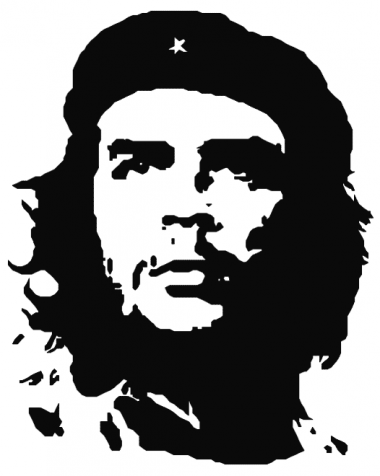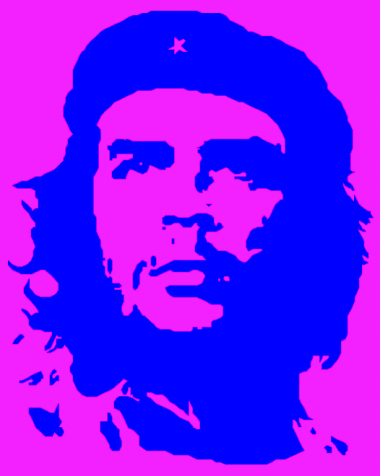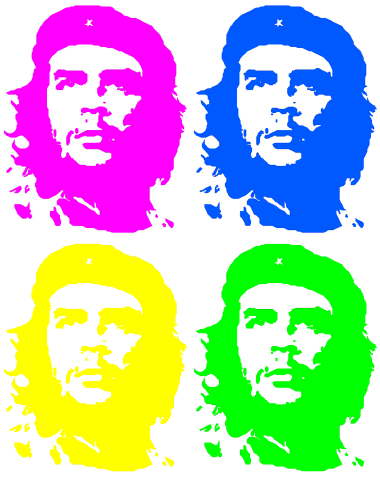
• This is a supplement for the font Hasta Siempre: my Fontstruct rendering of the iconic photograph of Che Guevara by Alberto Korda.
To assemble the picture type the following sequence:
ABCDE
FGHIJ
KLMNO
PQRST
UVWXY
Z0123.
Adjust the line spacing so as to get a continuous pattern without any horizontal gaps.
NIce addition, and clever use of FS!
Disclaimer: Ernesto Che Guevara remains to be a controversial figure, and only history will tell a final, unbiased judgment upon his merits. This work of mine is by no means to endorse his political views or deeds attributed to him. Still, he is an icon, a symbol within popular culture, a hero for some, and a lot more for others. Let me put two quotes to illustrate my point:
Che was the most complete human being of our age.
(by Jean-Paul Sartre)
Che's life is an inspiration for every human being who loves freedom. We will always honor his memory.
(by Nelson Mandela)
As I just told you, another stunning exemple of your incredible artistry in making beautiful "replicas put in another context". You used here Fontstruct as when the photorealists painters replicate photographs painting a giant grid of small details and when you add the cases of the grid the puzzle gives you a painting that is so close to a photograph that you can't tell it is a painting. Here you really can't tell it is Fontstruct.
Sorry for my english, it was not easy for me to explain here, hope you have understood.
ha! jus great
I'm not usually a fan of hi-res tracings, but this is a fantastic little work of art. Looks great when jumbled by some sample text. Very impressive that you didn't just use pixel bricks.
Impressive, genial work! Very good use for FS bricks! (This is just a new road that I will like to walk... once I've learned a little more from you to make fonts something better than now).
An incredible achievement ... technically and artistically. I remain amazed at the scope of your talent.
By the way, I'm in full agreement with Nelson Mandela on this one.
Thank you very much for your comments. I think, it is safe to say now that Hasta Siempre was well received, far beyond my expectations. I was a bit worried about the possibility, that someone might mistakenly believed I tried to sell marxist propaganda here. It couldn't have been further from the truth, and I think, I've made that clear in my disclaimer note. I have no intention to promote political ideas; I leave that to the politicians, who are always very good at furthering their own interests. However, since Voltaire's Candid we all know this world is not the best of all possible worlds. In fact, it is not even close to that, and heading to the opposite direction. Thus, there are several issues we strongly disagree with the official versions politicians want us to believe. I see a niche role for creative art, and typeface design in particular, to convey important messages to people, they would never hear on Fox News.
@neurone error: Well, that sounds very tempting to believe this Che portrait is photorealistic, but it's not. And I'm very happy with the imperfections, the rough polygonal look, and the small deviations from the original I've consciously made. The reason you think it's close to the photo, that it is easily one of the most ubiquitous, famous portrait, you probably knew the original, and you mind simply completes and corrects the small flaws.
@meek: Thank you for your comment. I've tried the sample text too. I put tiny dots to some otherwise empty glyphs to enable the sample text feature. Since it was produced using simple bricks and no fancy advanced techniques, it is a proof of concept to use Fontstruct to design/prototype large scale artworks for murals or floors with tiles.
@elmoyenique: Thank you very much for your praising words. If you really interested in this kind of technique, I tell you here briefly how I've made it. It's called tracing, and I've used the same grid paper method as Bat Country by loboarches. The other example is a bit different using transparent windows for tracing: FIGURE COLLECTION Part 1 by kix. Both were very inspirational to my project. Follow the links to find the info you need. Apart from the technical settings (size of the grid, magnification, contrast of the original pic, etc.), the result depends on your decisions brick-by-brick to best approximate the original. As for this particular case, I started with the right eye. I thought the glint was the most important detail to be faithfully reproduced. Without that the whole portrait would be soulless. I tweaked the parameters until I got it right. In general, it is a good practice to start with the most challenging part. Then Bob's your uncle.
@p2pnut: I'm always happy to have your comments. The quote by Nelson Mandela - I was lucky to find it. His endorsement of Che made a huge difference to me. I've learned a lot of things about his quest, and the modern history of Latin America, all because of this project.
Wow! Great work. It was a stunning art.
The Che image is good. I got some Che fonts and put them into good use and use Che heads to count film rolls now and then. I put Che to work with my projects.